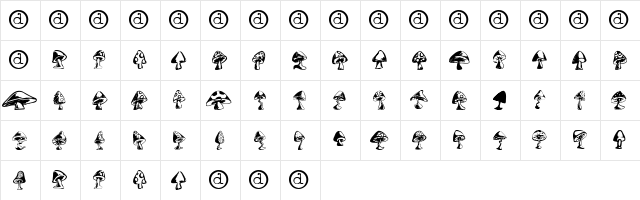
Shrooms Regular
Design Context for Shrooms Typeface
Shrooms is a composed and adaptable typeface that performs quietly and consistently across a wide range of design contexts.